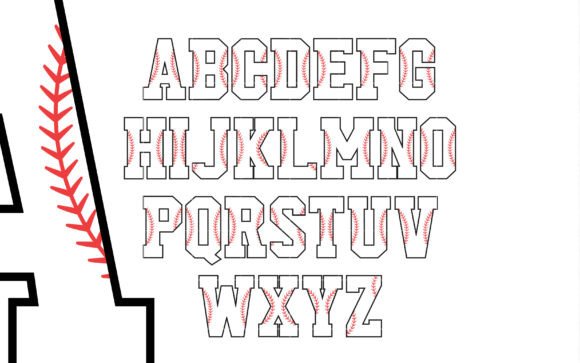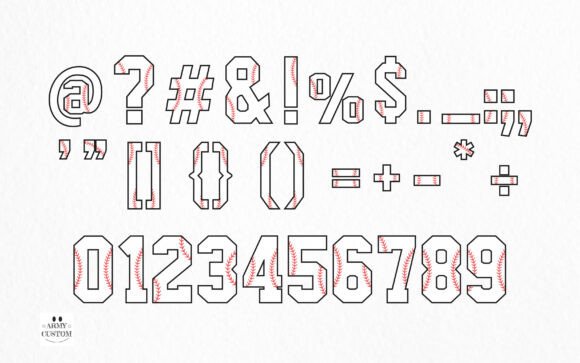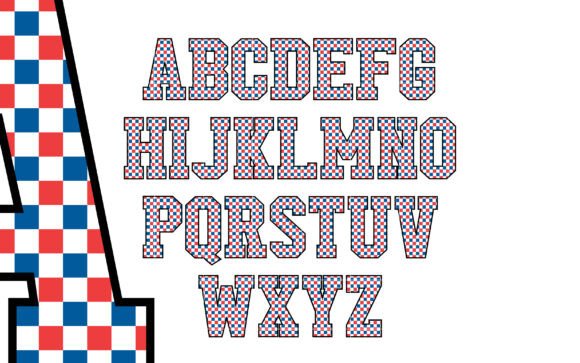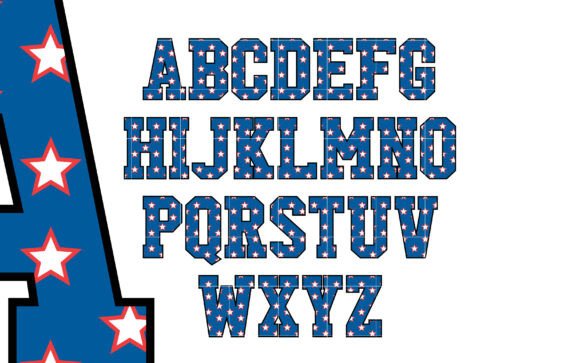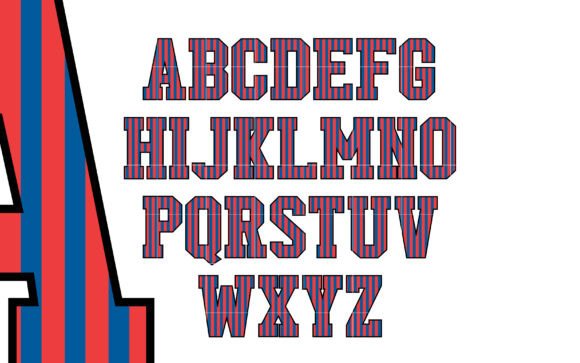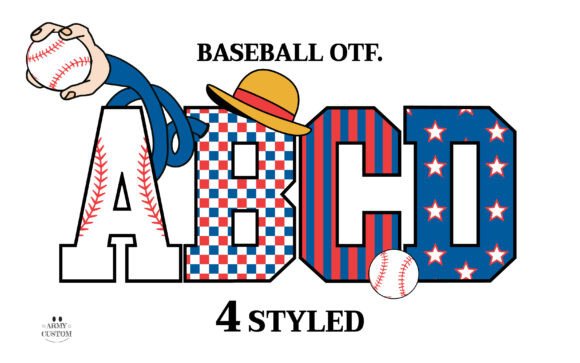
Introducing the Baseball Bundle Font: A Cute and Colorful Addition to Your Designs
Are you looking for a font that embodies playfulness and authenticity? Look no further than the Baseball Bundle Font, specifically designed for children’s activities and school projects. This chunky lettered font is sure to bring your designs to life with its cute and colorful aesthetic.
What Makes the Baseball Bundle Font Special?
The Baseball Bundle Font is a unique and charming font that is perfect for designers and crafters who want to add a touch of whimsy to their work. Its playful and authentic feel makes it an ideal choice for:
- Children’s activity sheets and worksheets
- School projects and presentations
- Crafting and DIY projects, such as party decorations and gift tags
Pairing with Back to School Plaid
Take your designs to the next level by pairing the Baseball Bundle Font with Back to School Plaid. This classic and charming pattern is the perfect complement to the font’s playful and colorful aesthetic. Together, they will add charm, color, and creativity to your designs, making them pop in a fun and engaging way.
Tips for Using the Baseball Bundle Font
To get the most out of the Baseball Bundle Font, here are some tips to keep in mind:
- Use it for headlines and titles to add a playful touch
- Pair it with bold colors and patterns, like Back to School Plaid, to create visually appealing designs
- Experiment with different font sizes and styles to add depth and interest to your designs
- Use the bonus PNG files to create custom graphics and illustrations
Why Designers and Crafters Love the Baseball Bundle Font
The Baseball Bundle Font has become a favorite among designers and crafters due to its:
- Unique and playful aesthetic
- Authentic and charming feel
- Flexibility and versatility in design applications
- Included bonus PNG files for added creative freedom
The Baseball Bundle Font is a valuable addition to any designer’s or crafter’s toolkit. Its cute and colorful aesthetic, paired with its playfulness and authenticity, make it the perfect choice for children’s activities and school projects. With its compatibility with certain programs and included bonus PNG files, this font is sure to bring your designs to life in a fun and engaging way.